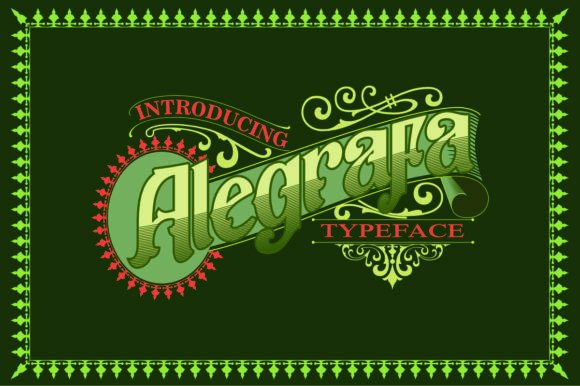
Introducing Alegrafa Font: A Timeless Masterpiece for Your Creative Endeavors
In the realm of typography, there are fonts that merely exist, and then there are fonts that captivate, inspire, and leave an indelible mark on the hearts and minds of designers and creatives alike. Alegrafa Font belongs to the latter category, an extraordinary display font family that transcends the boundaries of ordinary typefaces. With its captivating vintage charm and timeless appeal, Alegrafa Font has become the darling of discerning designers seeking to imbue their projects with a touch of nostalgia and sophistication.
Embark on a journey through time as you explore the intricate details and elegant curves of Alegrafa Font. Meticulously crafted by the talented team at Constructype Studio, this font family is a testament to the enduring power of classic design. Each character exudes a sense of authenticity and artistry, reminiscent of the golden age of typography. Whether you're a seasoned designer or just starting to explore the world of fonts, Alegrafa Font is sure to ignite your creativity and elevate your projects to new heights.
Immerse yourself in the versatility of Alegrafa Font, a font family that defies limitations. Its wide range of weights and styles allows you to effortlessly adapt it to any design concept, from delicate and ethereal to bold and commanding. Whether you're crafting eye-catching logos, designing captivating posters, or creating unique branding materials, Alegrafa Font has the power to transform your ideas into visual masterpieces.
Unleash your imagination and explore the endless possibilities that await you with Alegrafa Font. Whether you're working on digital designs, creating eye-catching signage, or designing apparel that speaks to the soul, this font family is your perfect companion. Its vintage charm adds a touch of nostalgia to your creations, while its modern sensibilities ensure that your designs remain relevant and impactful.